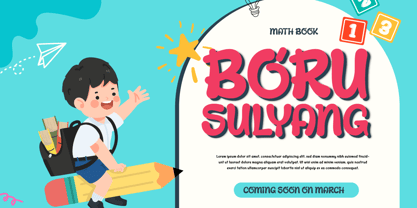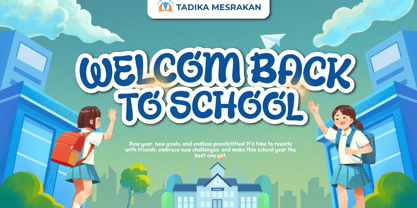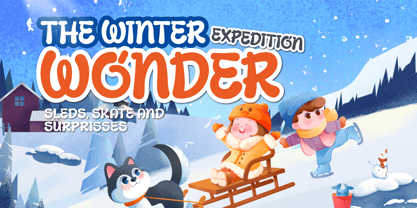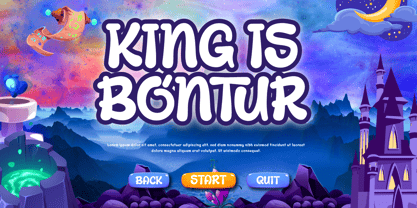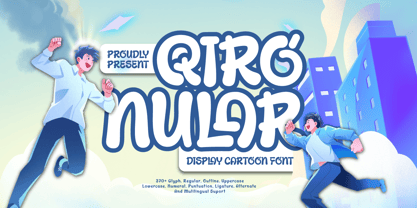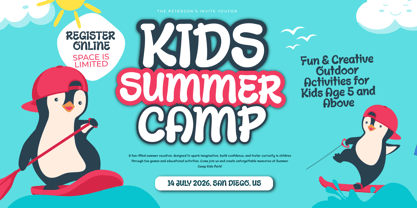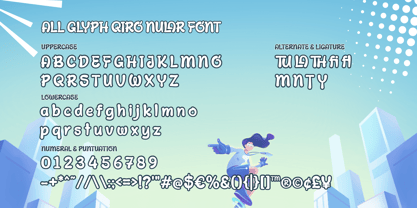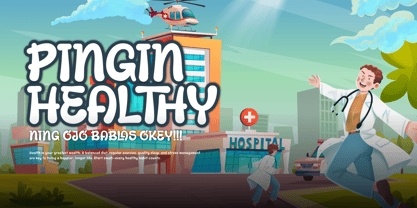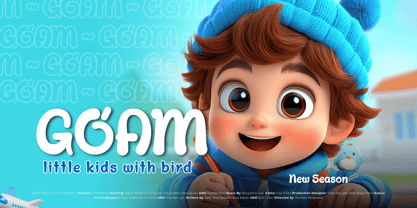
Qiro Nular
von Twinletter
Die Schriftfamilie Qiro Nular wurde von Rozikan entworfen und von Twinletter veröffentlicht. Qiro Nular enthält 2 Stile und Familienpaketoptionen. Mehr über diese Familie
Qiro Nular is a bold and playful cartoon display font that brings energy, imagination, and fun to your creative work. With two dynamic styles—Regular and Outline—this font is perfect for children’s storybooks, animated titles, game interfaces, toy packaging, comic-style branding, and more.
The Regular style offers a vibrant, full-bodied look with thick, rounded strokes, making your text pop with charm and personality. Meanwhile, the Outline style adds flexibility and a playful twist—great for layering, coloring, and creative composition.
Whether you're designing for young audiences or aiming to inject fun into your brand identity, Qiro Nular delivers joyful, cartoon-inspired vibes with versatility and style.
Designer: Rozikan Rozikan
Foundry: Twinletter